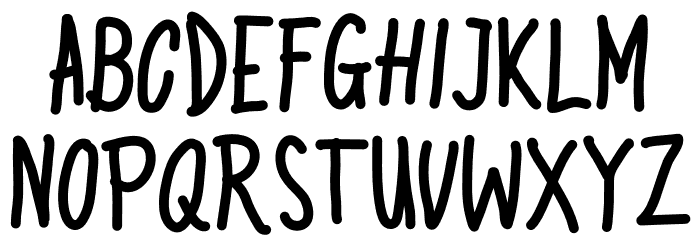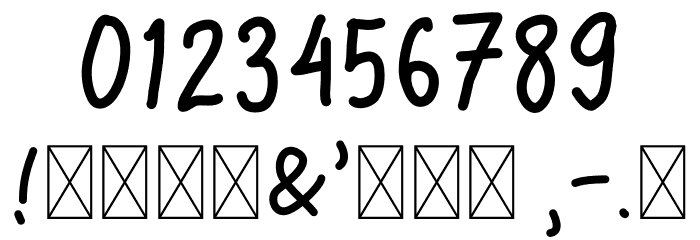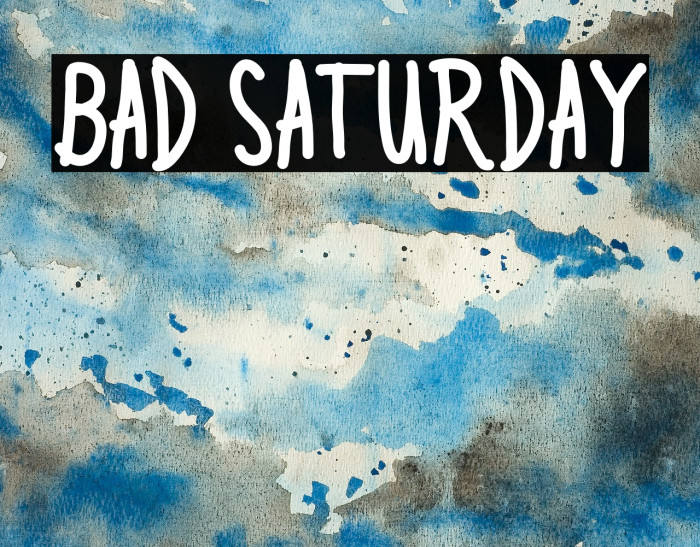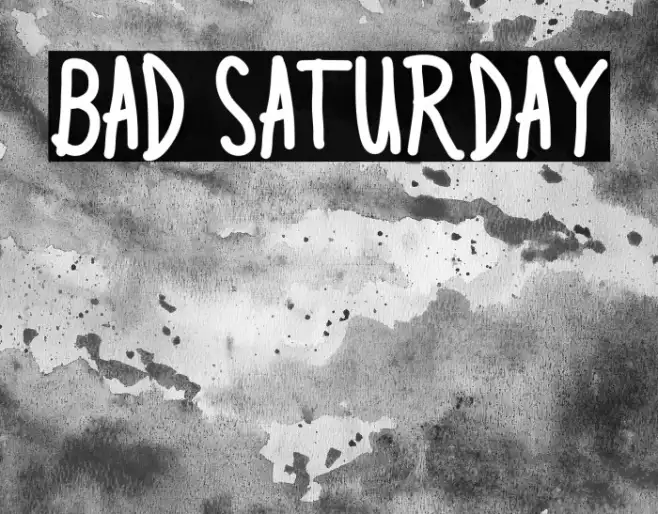
Bad Saturday Font
This font features a playful and casual handwritten style, characterized by its smooth, flowing lines and slightly irregular shapes. The letters are bold and rounded, giving a friendly and approachable appearance. The uppercase and lowercase letters maintain a consistent style, with a slight slant that adds to the informal feel. Numbers and special characters are designed to match the overall aesthetic, ensuring a cohesive look across all text. This font is ideal for projects that require a personal touch, such as invitations, greeting cards, or social media graphics.
A playful, casual handwritten font with smooth, flowing lines.
- Proposed Projects: Ideal for invitations, greeting cards, social media graphics, and personal branding.
- Overall Style: Casual, Playful
- Use Case: Headlines, Logos, Informal Text